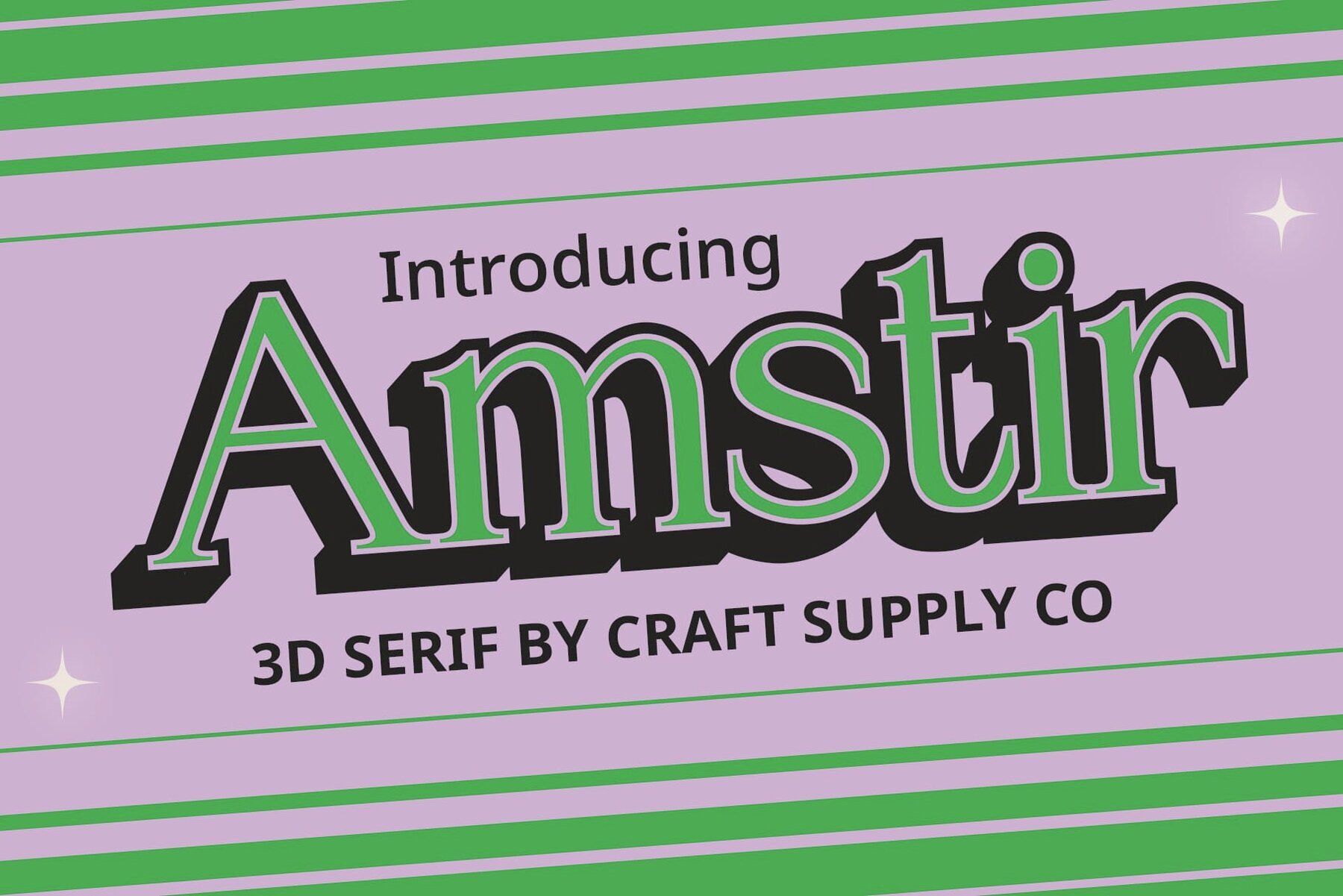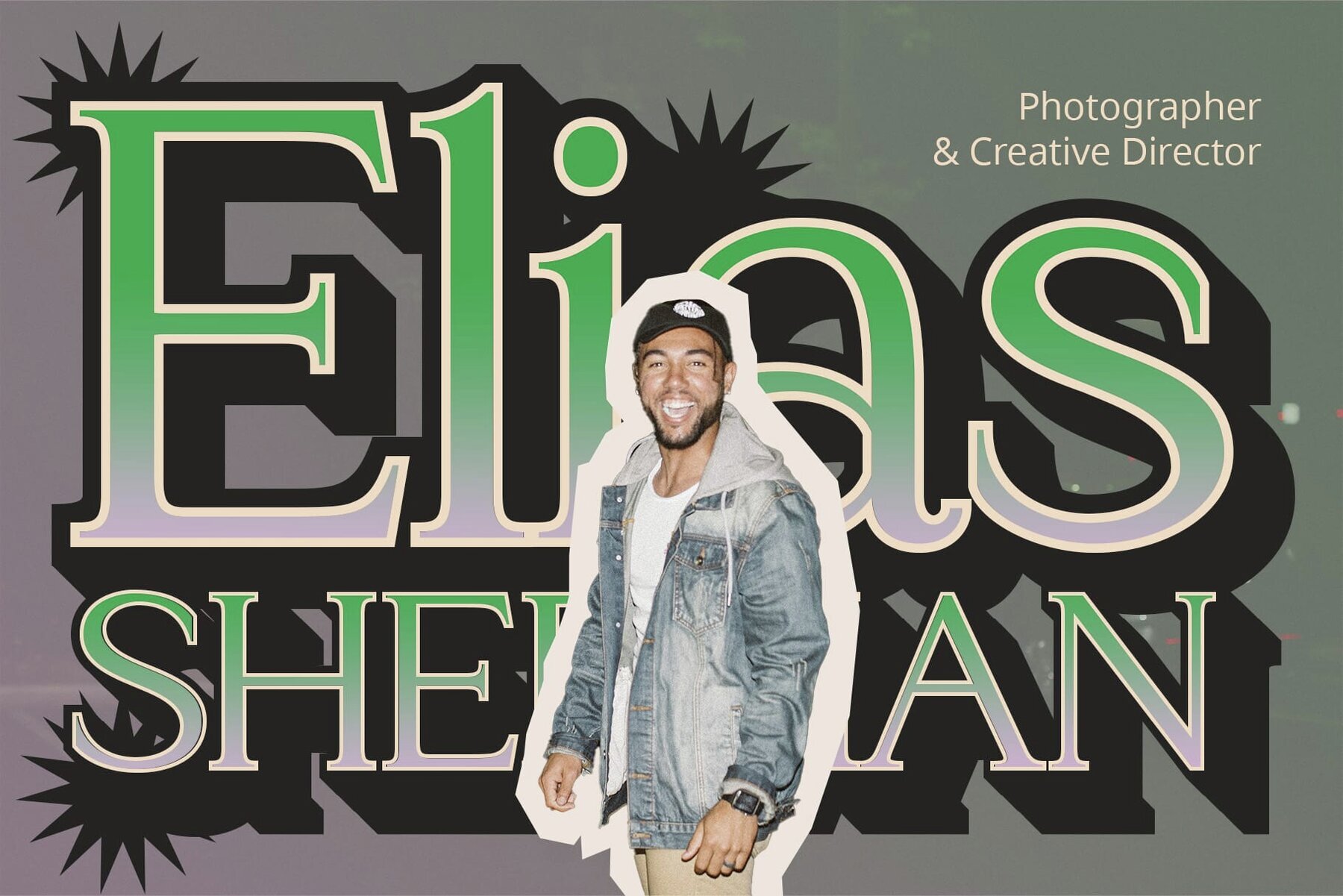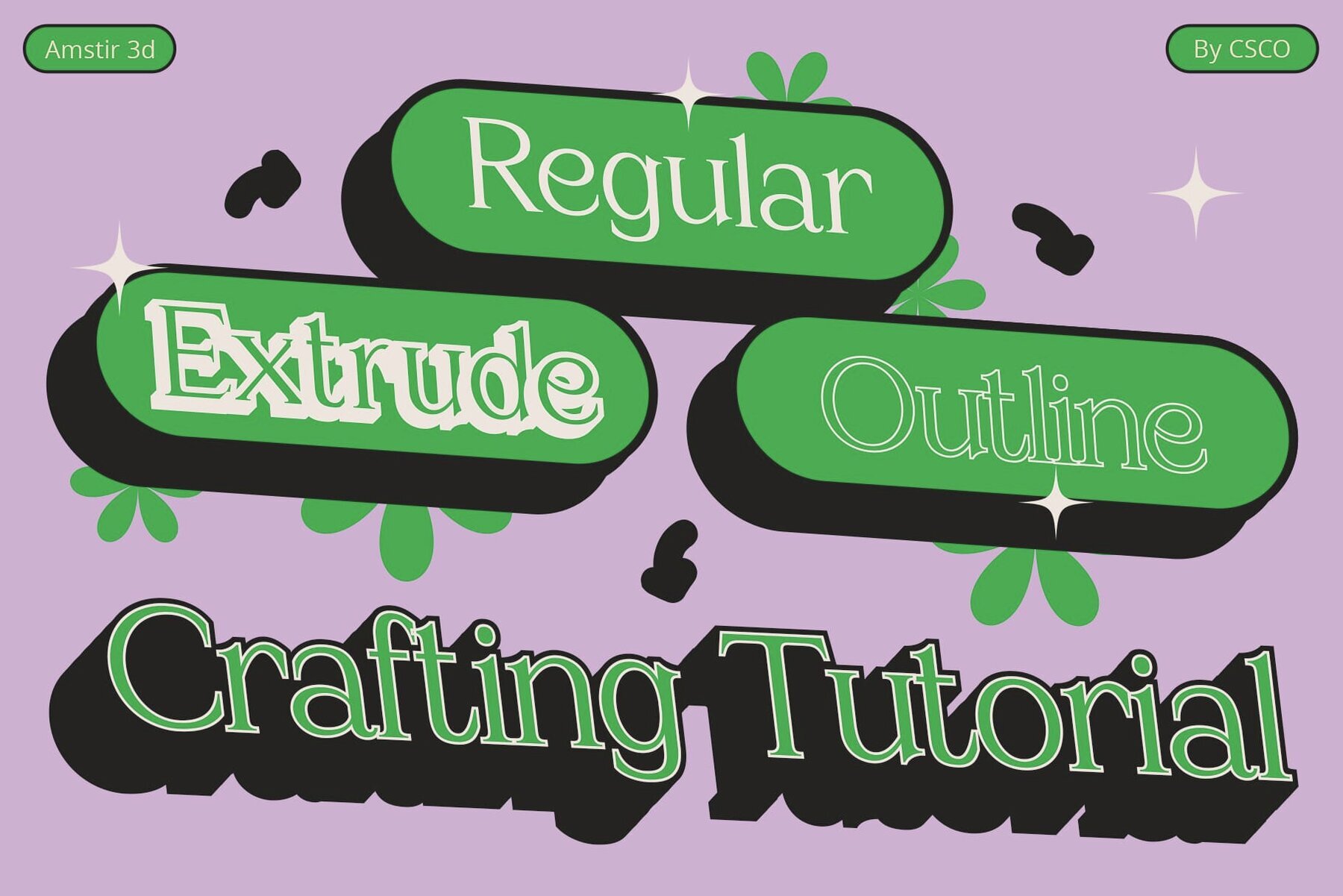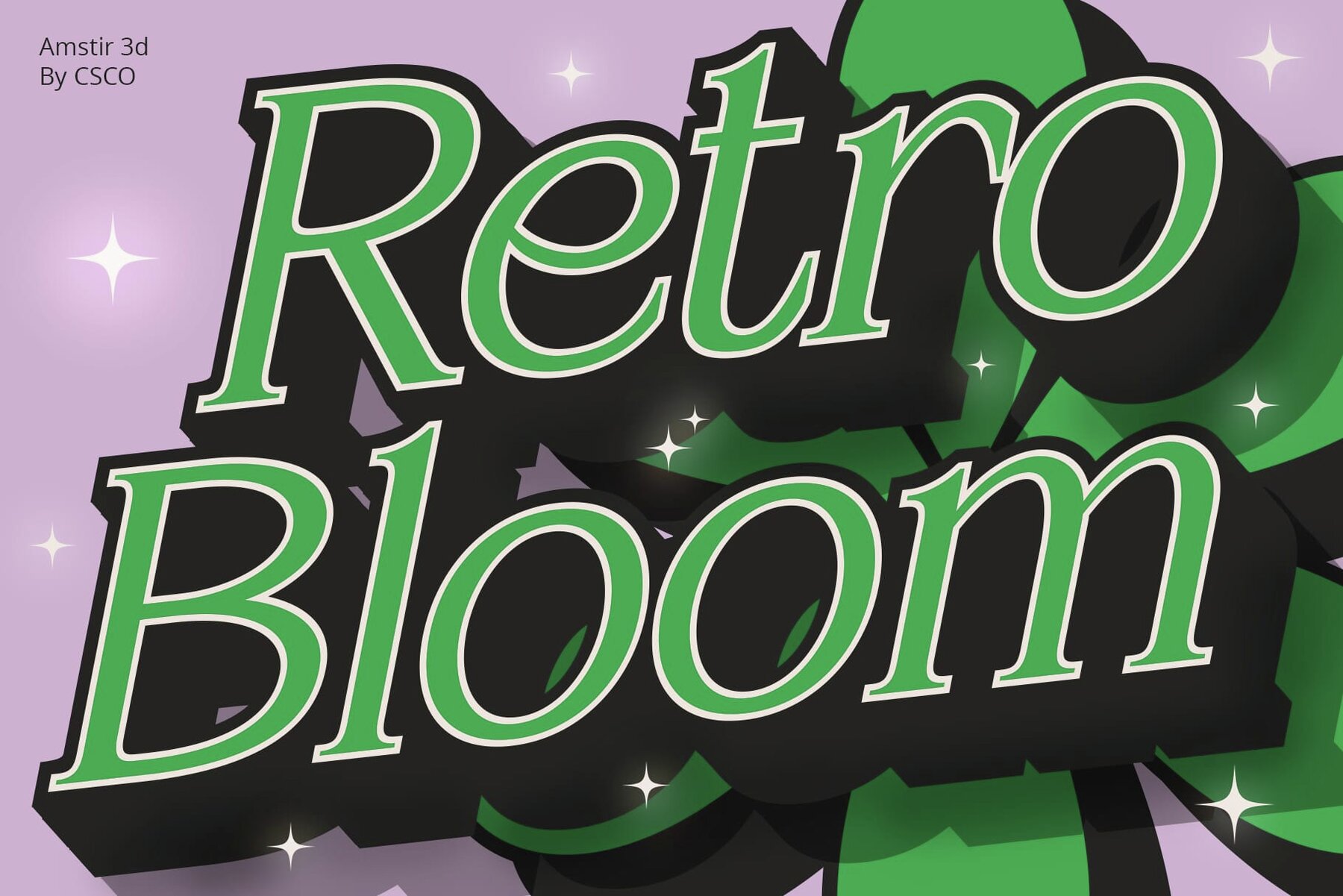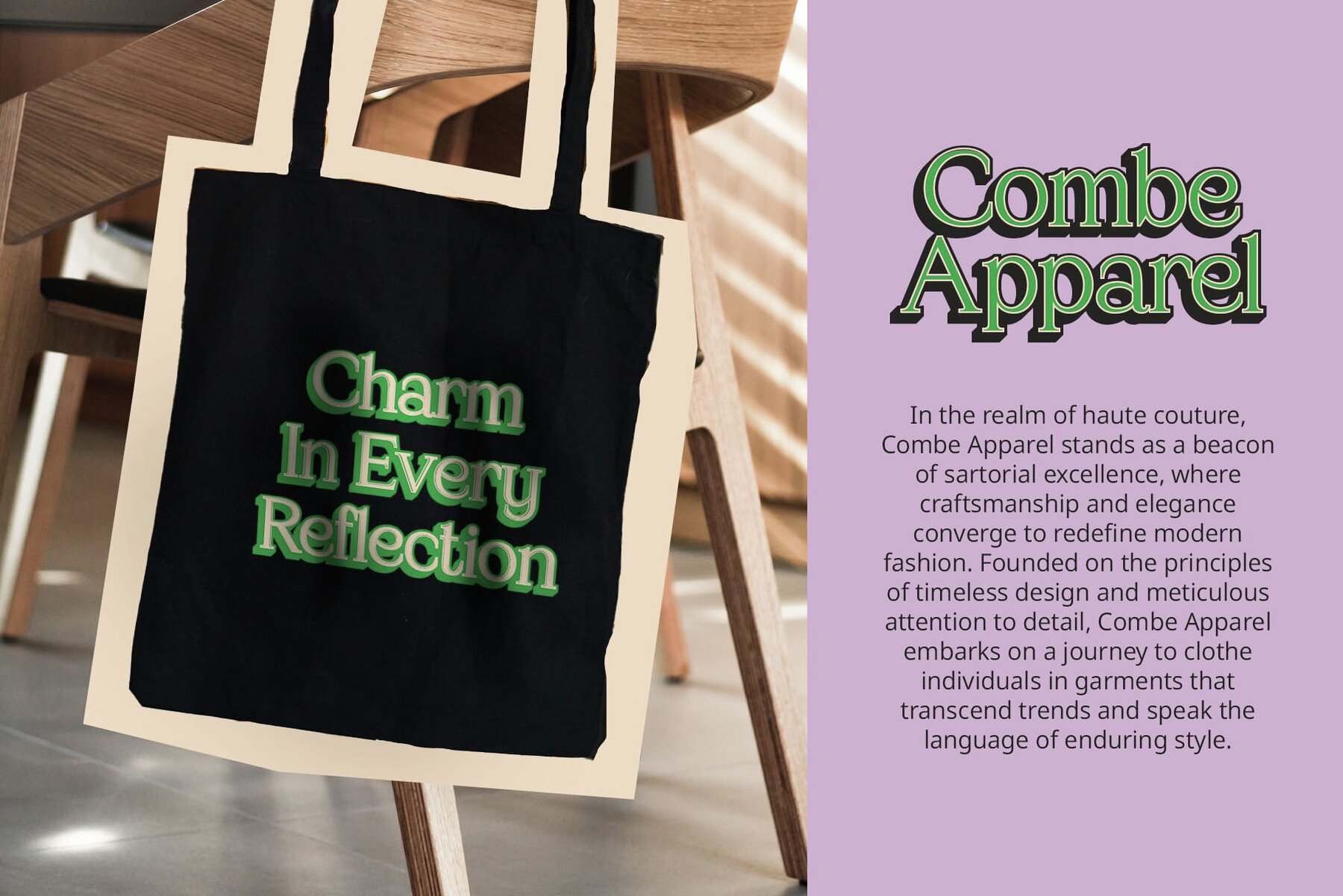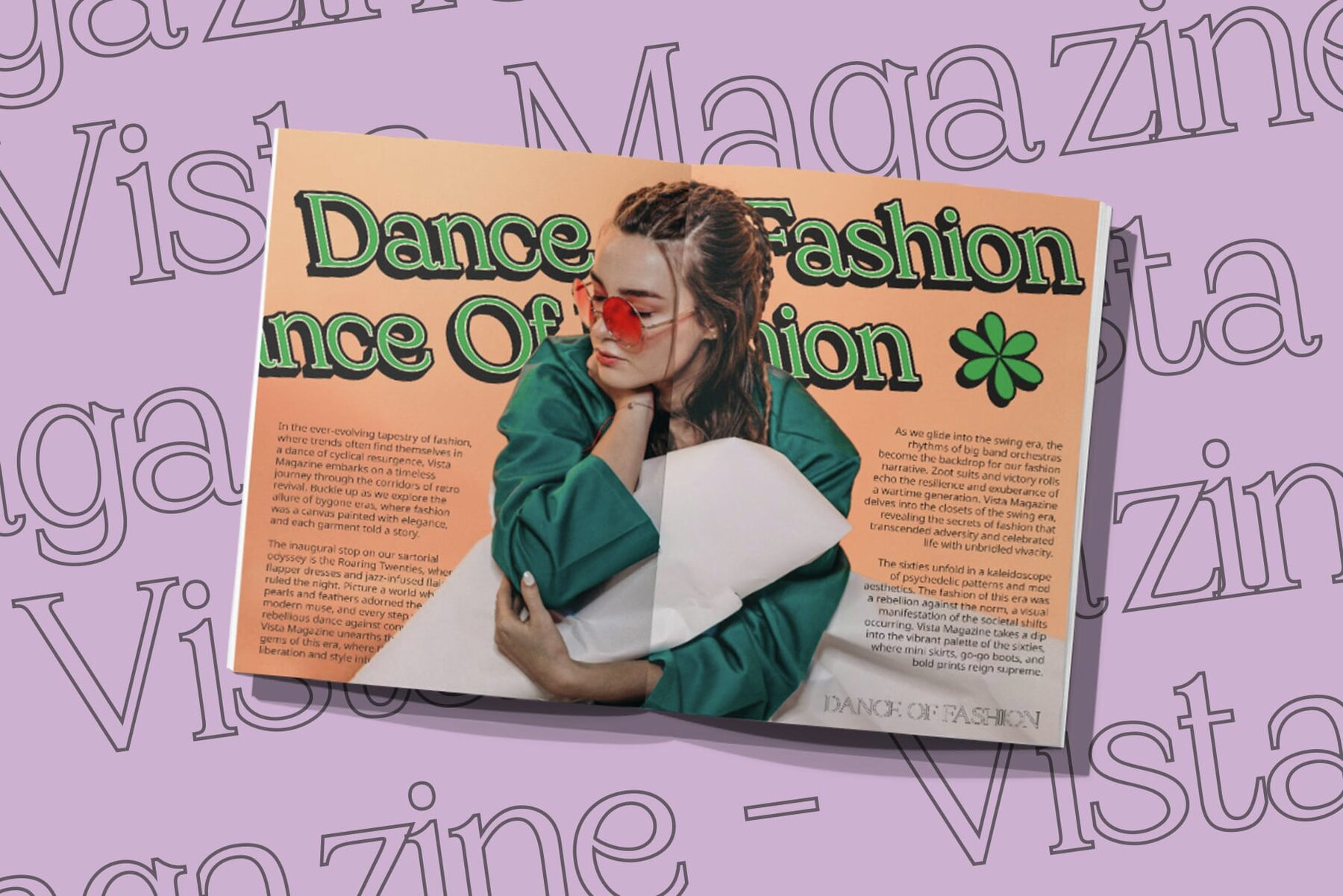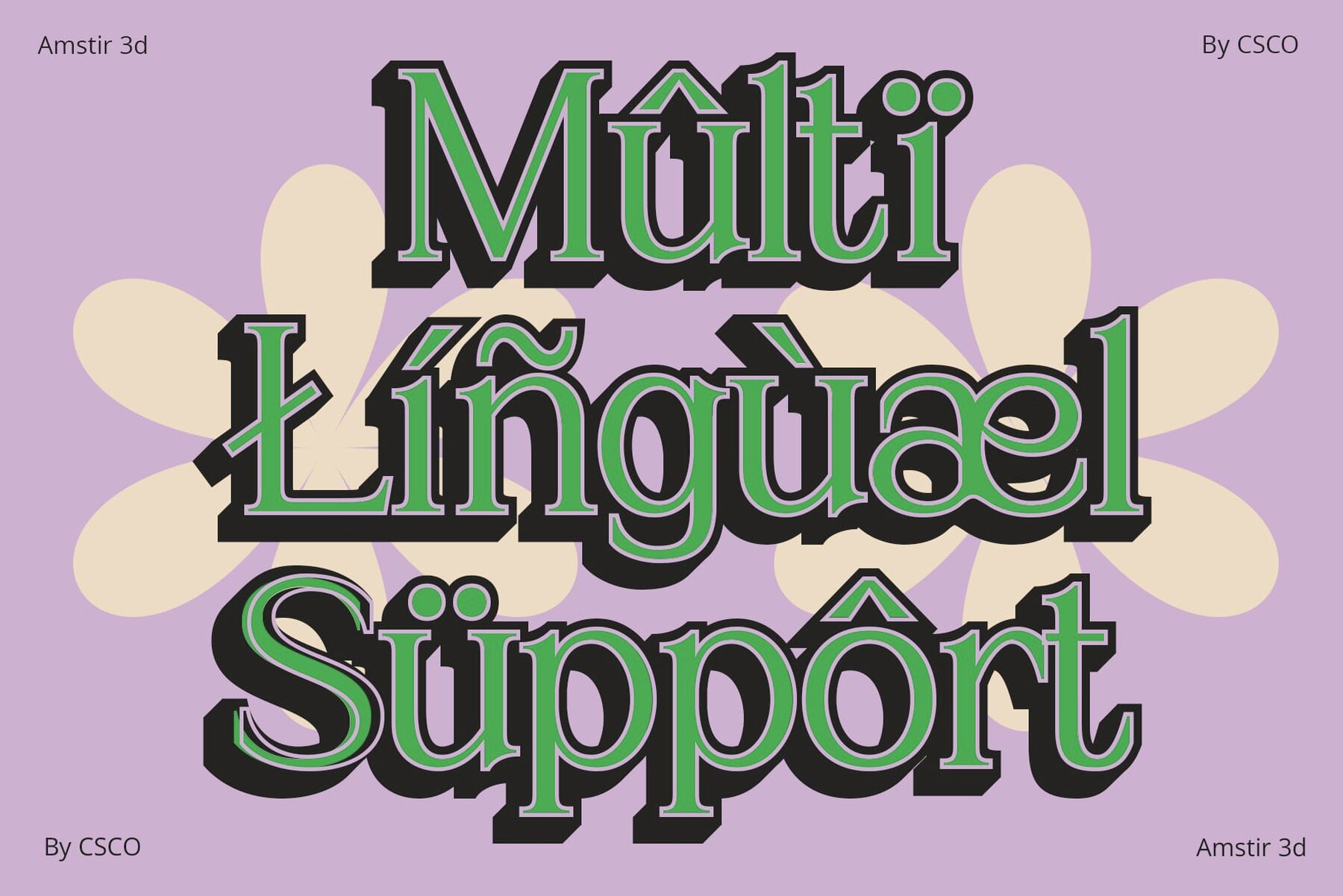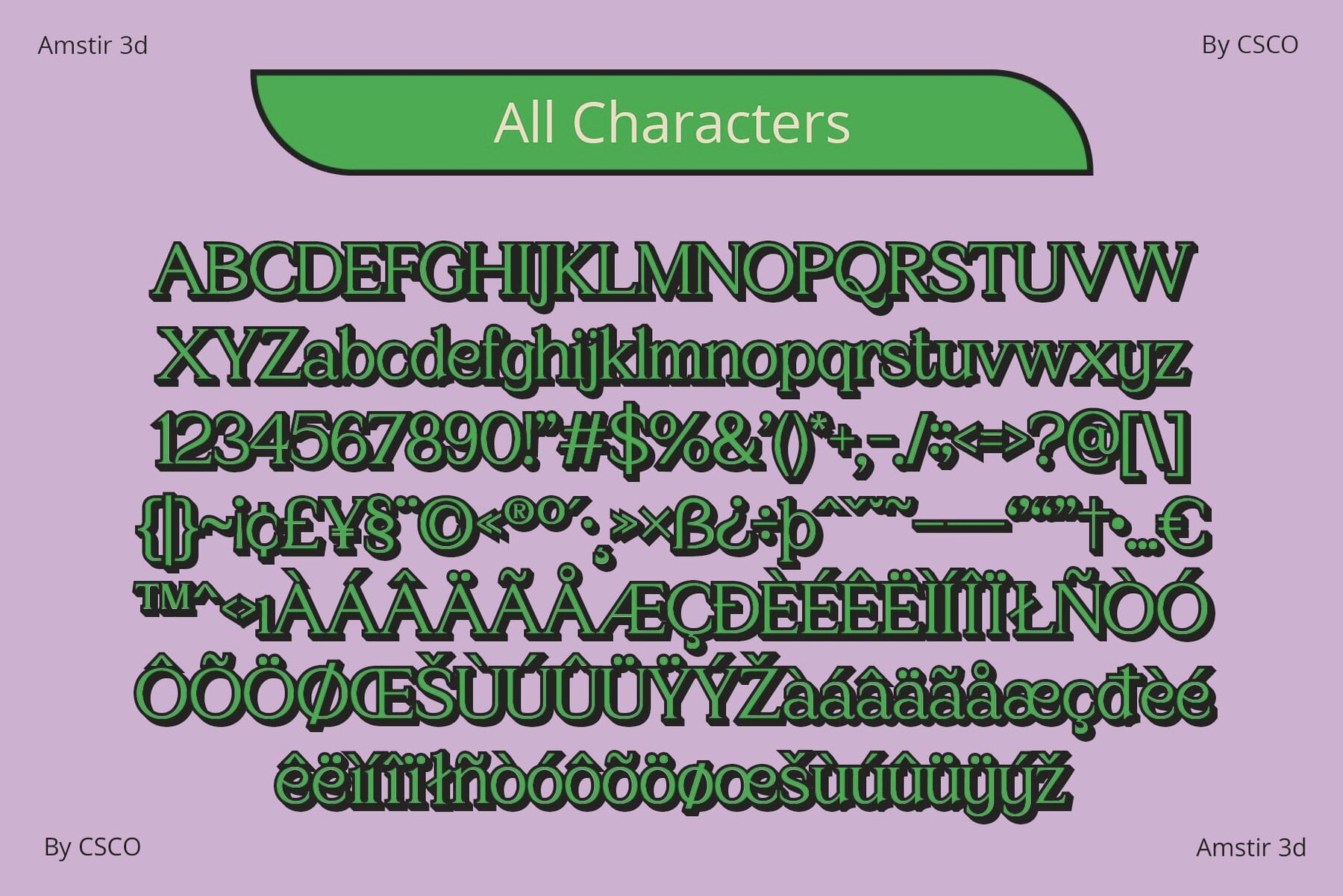
Amstir 3D Font
Amstir 3D seamlessly combines classic serif elegance with a modern touch, creating a font that remains timeless and sophisticated. This font features a striking 3D effect, adding incredible depth and dimension that transforms the traditional serif into a visually captivating masterpiece. With its classic roots, Amstir 3D introduces a playful element, capturing attention and adding an unexpected flair to any design. Whether used for print materials or digital platforms, Amstir 3D adapts seamlessly, ensuring your message is conveyed with timeless charm and modern appeal. More than just a font, Amstir 3D is a blend of classic sophistication and contemporary charisma. Enhance your designs with a touch of 3D magic, ensuring they captivate and leave a memorable impression. This typeface is user-friendly and does not require special software for use. If you have any questions or need assistance, please feel free to contact us. We appreciate your support in enhancing your creative projects!Amstir 3D: Classic Elegance with a Pop Twist
Dynamic 3D Appeal
Pop and Eye-Catching
Versatility Unleashed
Conclusion